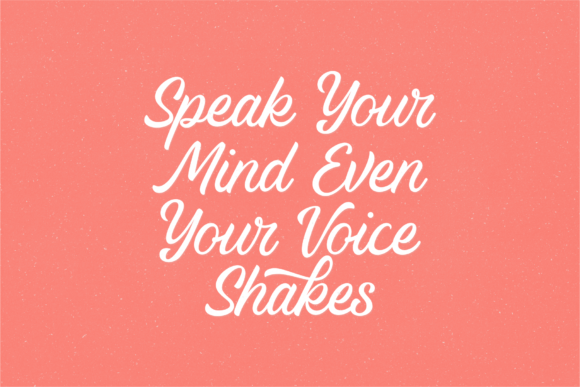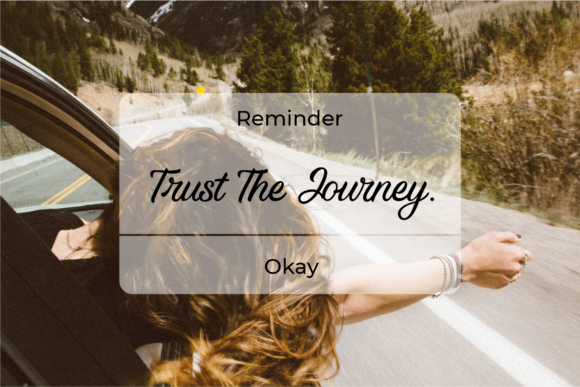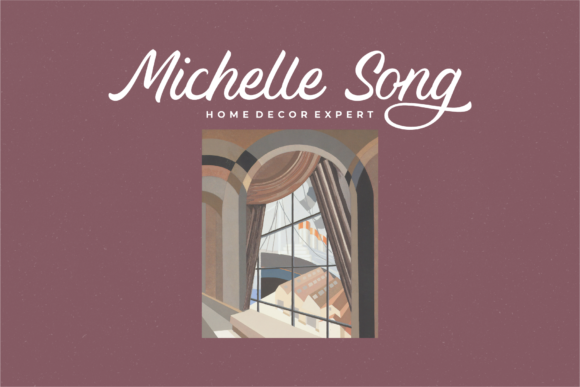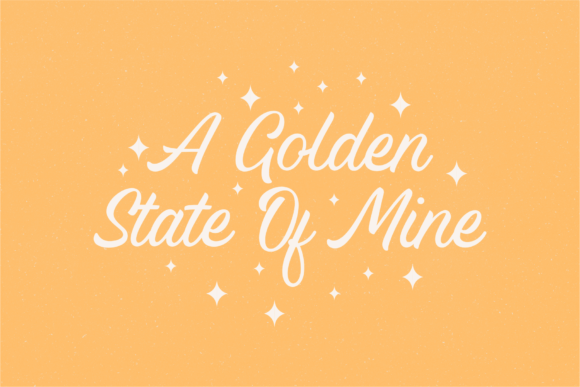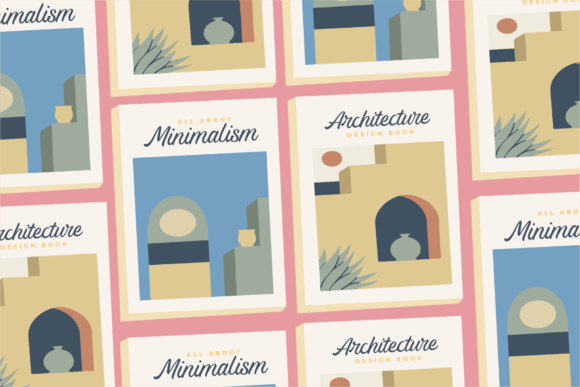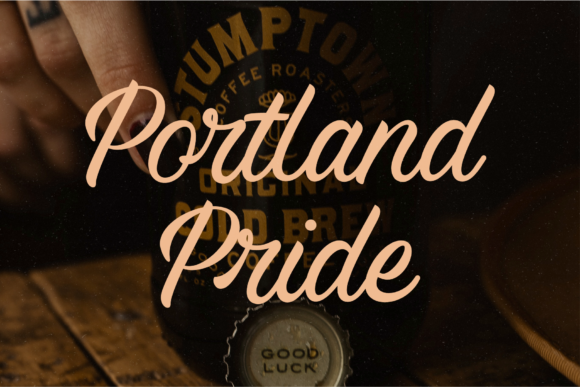
Discover the Charm of Alluring Calligraphy Font
Are you looking for a font that adds a touch of elegance and playfulness to your creative projects? Look no further than the Alluring Calligraphy Font. This lovely script font features charming, playful characters that seem to dance along the baseline, making it perfect for a variety of design applications.
What is Alluring Calligraphy Font?
Alluring Calligraphy Font is a beautiful script font that is designed to add a personal touch to your designs. Its unique and charming characters are carefully crafted to create a sense of movement and fluidity, making it perfect for projects that require a touch of sophistication and whimsy.
Key Features of Alluring Calligraphy Font
- Charming and Playful Characters: The font features playful characters that seem to dance along the baseline, adding a touch of whimsy to your designs.
- Elegant and Sophisticated: The font’s elegant and sophisticated design makes it perfect for projects that require a touch of luxury and refinement.
- Highly Versatile: The font is highly versatile and can be used for a variety of design applications, including wedding invitations, branding, packaging, and more.
- Easy to Read: The font is easy to read, making it perfect for body text and headlines.
Uses of Alluring Calligraphy Font
Alluring Calligraphy Font is a highly versatile font that can be used for a variety of design applications. Here are some of the most popular uses of this font:
- Wedding Invitations: The font’s elegant and sophisticated design makes it perfect for wedding invitations, save-the-date cards, and other wedding-related stationery.
- Branding and Packaging: The font’s unique and charming characters make it perfect for branding and packaging projects that require a touch of personality and whimsy.
- Signage and Displays: The font’s playful and elegant design makes it perfect for signage and displays that require a touch of sophistication and charm.
- Digital and Print Media: The font can be used for digital and print media, including social media graphics, flyers, brochures, and more.
Tips for Using Alluring Calligraphy Font
Here are some tips for using Alluring Calligraphy Font in your designs:
- Use it as a Headline Font: The font’s elegant and sophisticated design makes it perfect for headlines and titles.
- Pair it with a Sans-Serif Font: Pairing the font with a sans-serif font creates a beautiful contrast that adds visual interest to your designs.
- Experiment with Colors and Textures: The font’s playful and charming characters make it perfect for experimenting with different colors and textures.
- Use it to Add a Personal Touch: The font’s unique and charming characters make it perfect for adding a personal touch to your designs.
Alluring Calligraphy Font is a beautiful script font that adds a touch of elegance and playfulness to any design project. Its unique and charming characters make it perfect for a variety of design applications, from wedding invitations to branding and packaging. With its highly versatile design and easy-to-read characters, this font is sure to become a favorite among designers and crafters.
Get Creative with Alluring Calligraphy Font